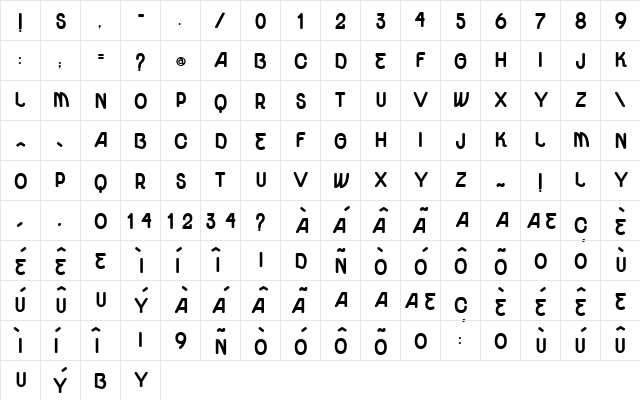
vtks unidade ultra bold Regular
| Foundry | douglas vitkauskas |
| Designer | douglas vitkauskas |
Design Context for vtks unidade ultra bold Typeface
vtks unidade ultra bold takes a measured approach to typography — its balanced proportions and neutral character make it a reliable workhorse for both digital and print work. The heavy weight commands attention and anchors typographic hierarchies.